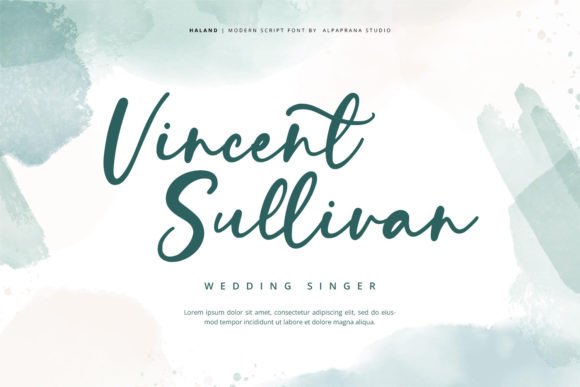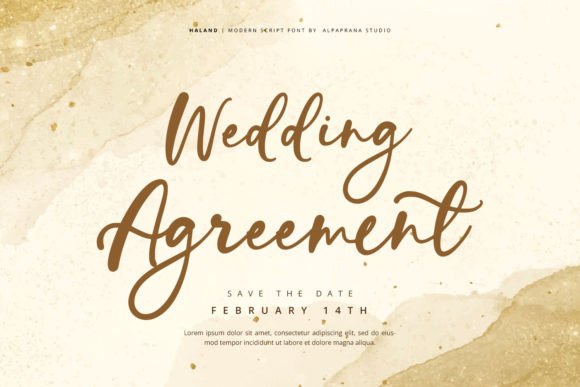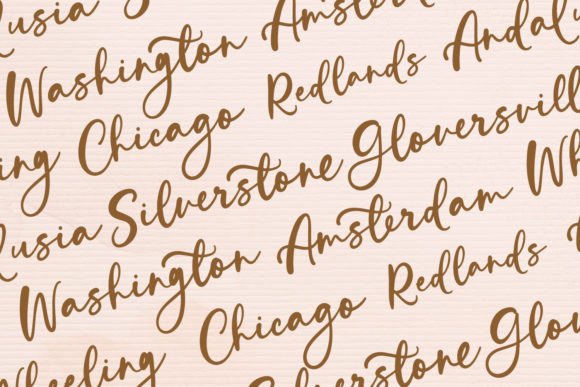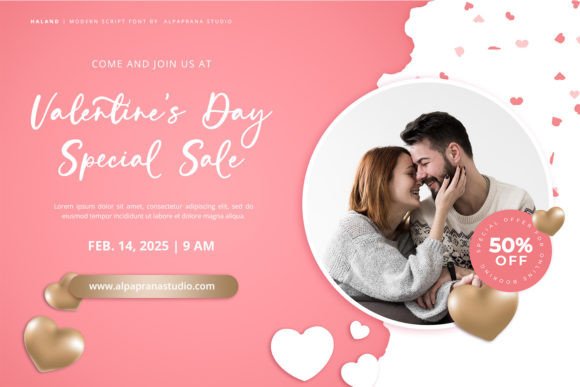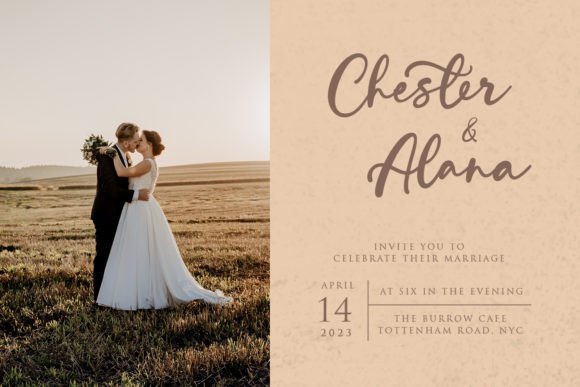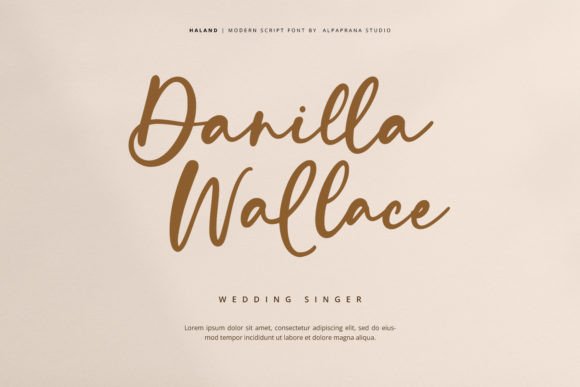
Haland Font: Elevate Your Design with a Modern Script Font
In the world of typography, fonts play a crucial role in conveying the tone and personality of a brand. For designers and crafters, finding the perfect font can be a daunting task. However, if you’re looking for a modern script font that exudes natural and classic feels, look no further than Haland Font. In this article, we’ll explore the features and benefits of Haland Script, and how it can elevate your design to the next level.
What is Haland Font?
Haland Script is a modern script font designed to provide a natural and classic feel to your designs. Its unique and elegant style makes it perfect for a wide range of applications, from branding and logo design to lettering, logotype, and more. The font’s versatility and legibility make it an excellent choice for designers and crafters looking to add a touch of sophistication to their work.
Key Features of Haland Font
- Modern Script Style: Haland Script boasts a modern script style that is both elegant and refined.
- Natural and Classic Feels: The font’s natural and classic feels make it perfect for designs that require a touch of sophistication.
- Highly Legible: Haland Script is designed to be highly legible, making it suitable for use in a variety of applications, from body text to headings.
- Multilingual Support: The font supports multiple languages, making it a great choice for designers working on international projects.
Use Cases for Haland Font
Haland Script is a versatile font that can be used in a wide range of applications, including:
- Branding: Create a lasting impression with a custom logo that showcases your brand’s personality.
- Logo Design: Design a unique and memorable logo that sets your brand apart.
- Lettering: Add a touch of elegance to your lettering with Haland Script’s flowing strokes.
- Logotype: Create a stunning logotype that combines text and graphics.
- Clothing: Add a touch of sophistication to your clothing designs with Haland Script.
- Poster: Create eye-catching posters that grab attention with Haland Script.
- Magazine: Use Haland Script to add a touch of elegance to your magazine designs.
- Packaging: Make your packaging designs stand out with Haland Script.
- Posters: Create stunning posters that showcase your message with Haland Script.
- Shopping Bags: Add a touch of sophistication to your shopping bag designs with Haland Script.
- T-Shirts: Create stunning t-shirt designs that showcase your brand’s personality.
- Book Covers: Use Haland Script to create eye-catching book covers that grab attention.
- Photography: Add a touch of elegance to your photography with Haland Script.
- Special Events: Create stunning designs for special events, such as weddings, parties, and more.
Benefits of Using Haland Font
Using Haland Script in your designs offers several benefits, including:
- Unique and Elegant Style: Haland Script’s unique and elegant style sets it apart from other fonts.
- Versatility: The font’s versatility makes it suitable for use in a wide range of applications.
- Legibility: Haland Script’s high legibility makes it perfect for use in body text and headings.
- Time-Saving: With Haland Script, you can save time and effort in creating custom designs from scratch.
In conclusion, Haland Script is a modern script font that offers a natural and classic feel to your designs. Its versatility, legibility, and unique style make it perfect for a wide range of applications, from branding and logo design to lettering, logotype, and more. Whether you’re a designer or crafter, Haland Script is an excellent choice for adding a touch of sophistication to your work. So why wait? Download Haland Font today and elevate your design to the next level!